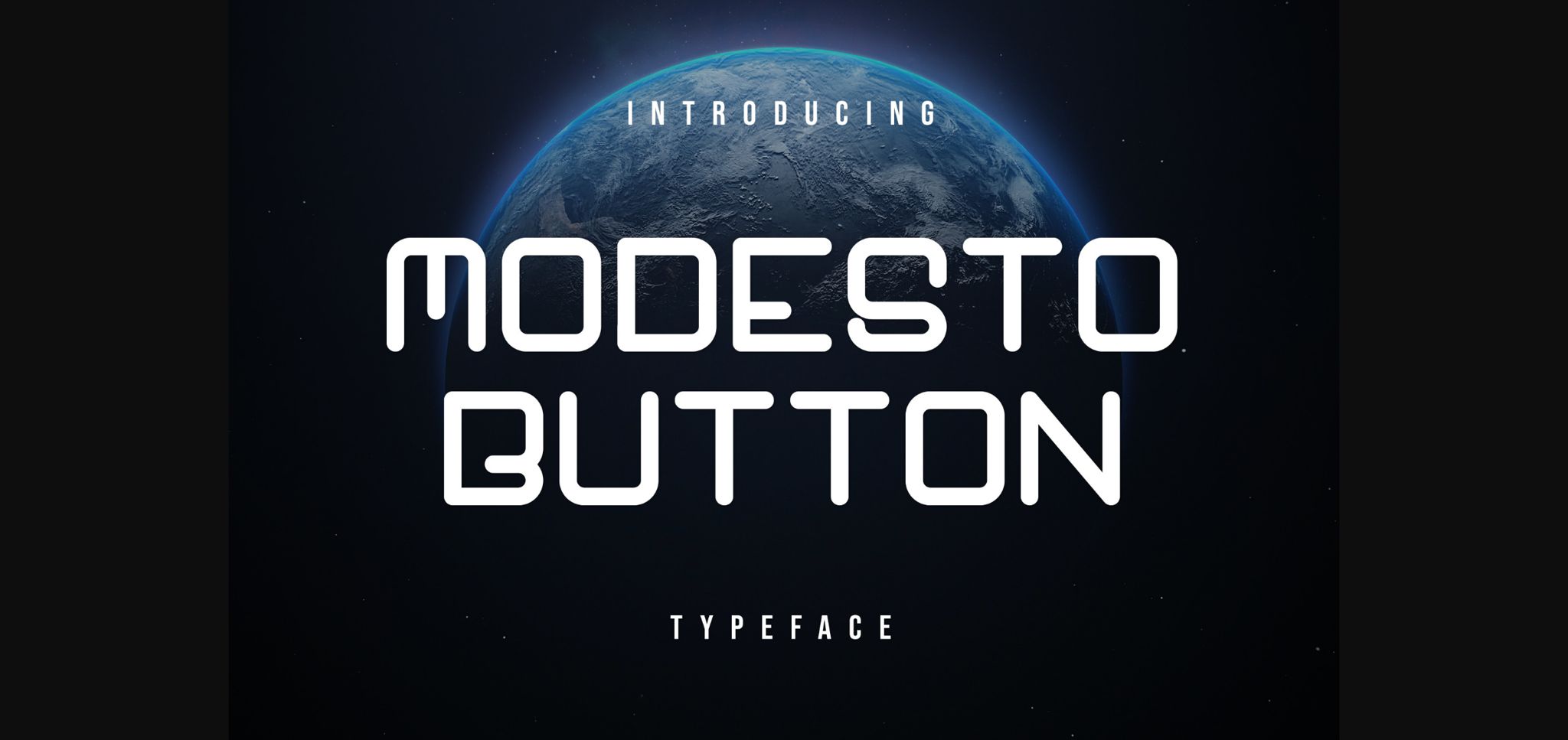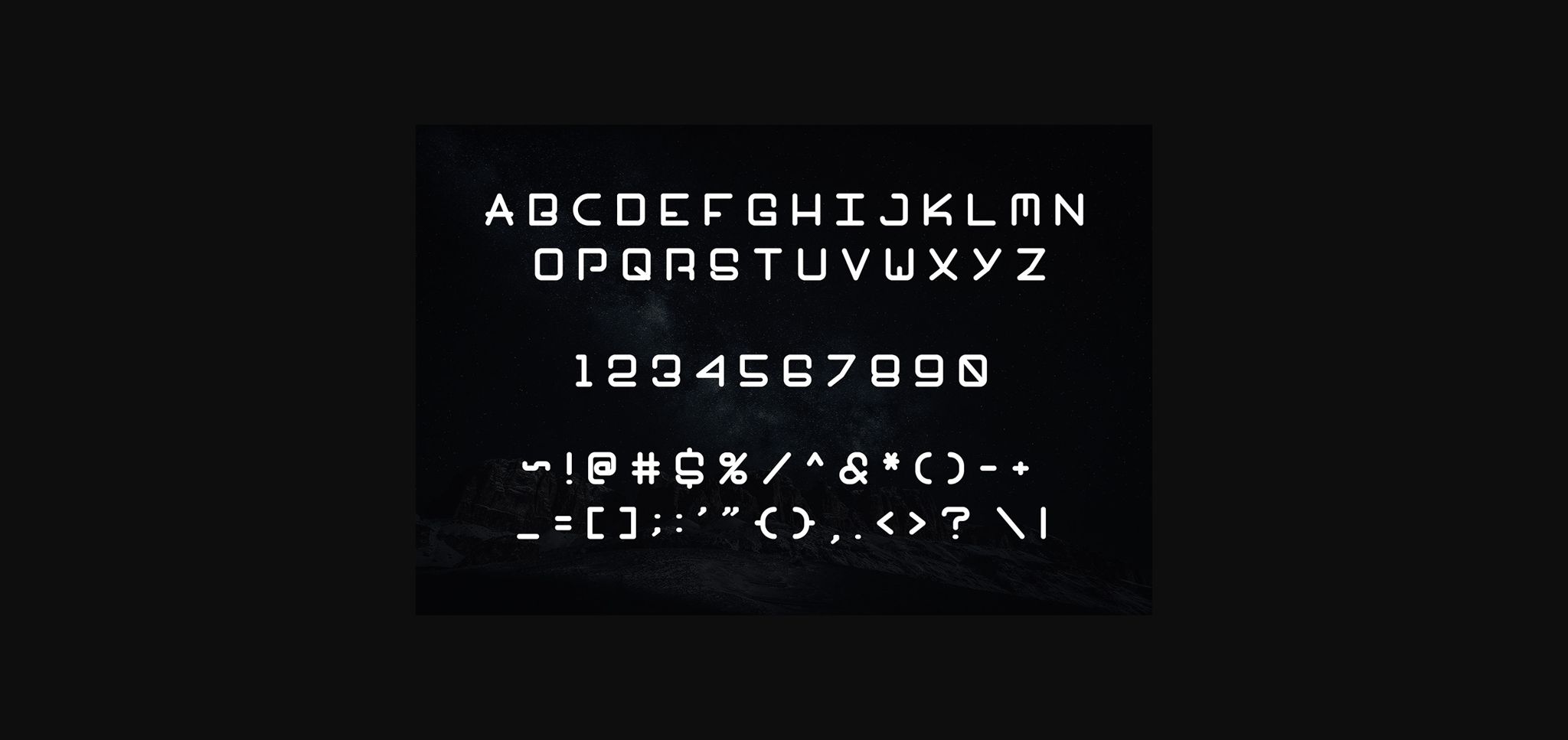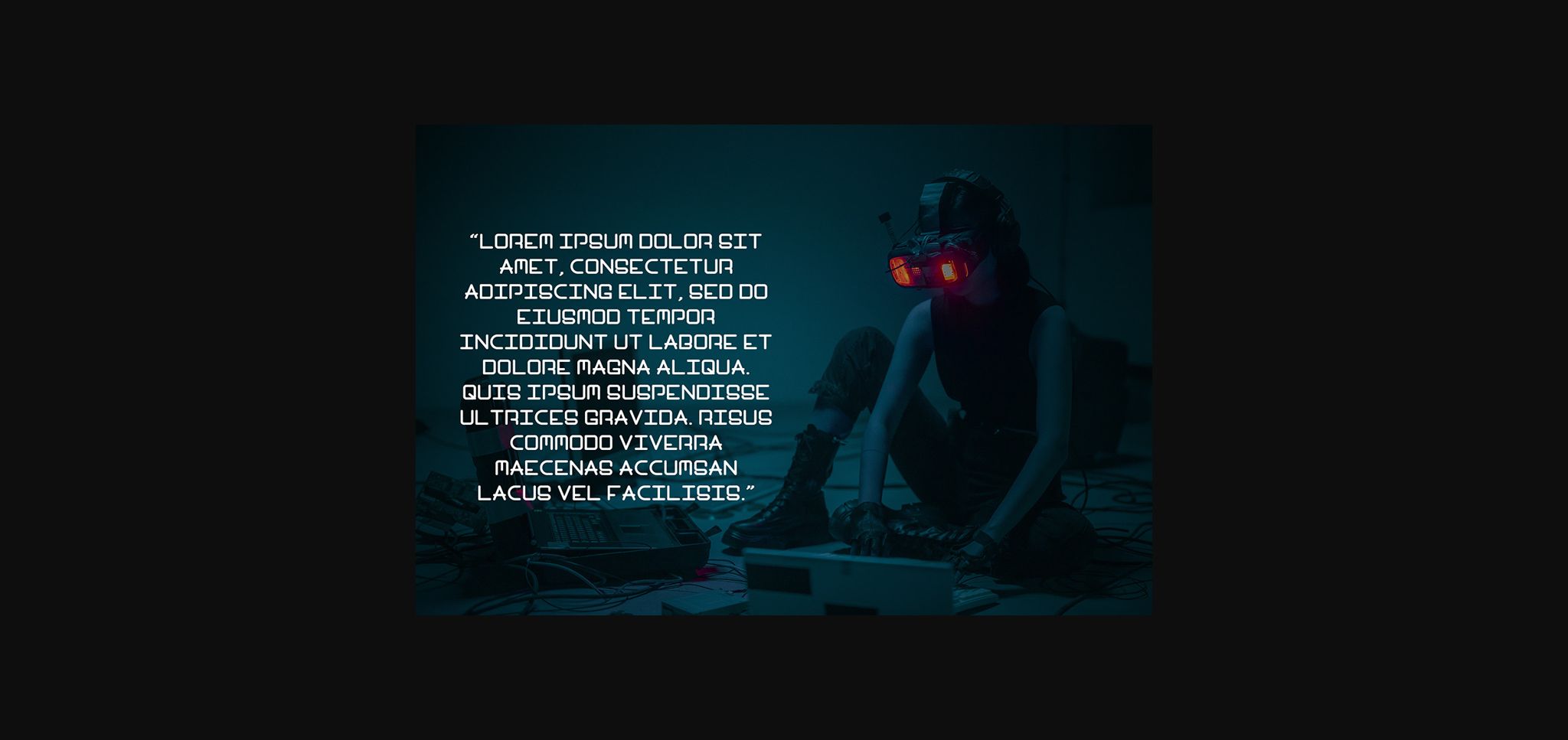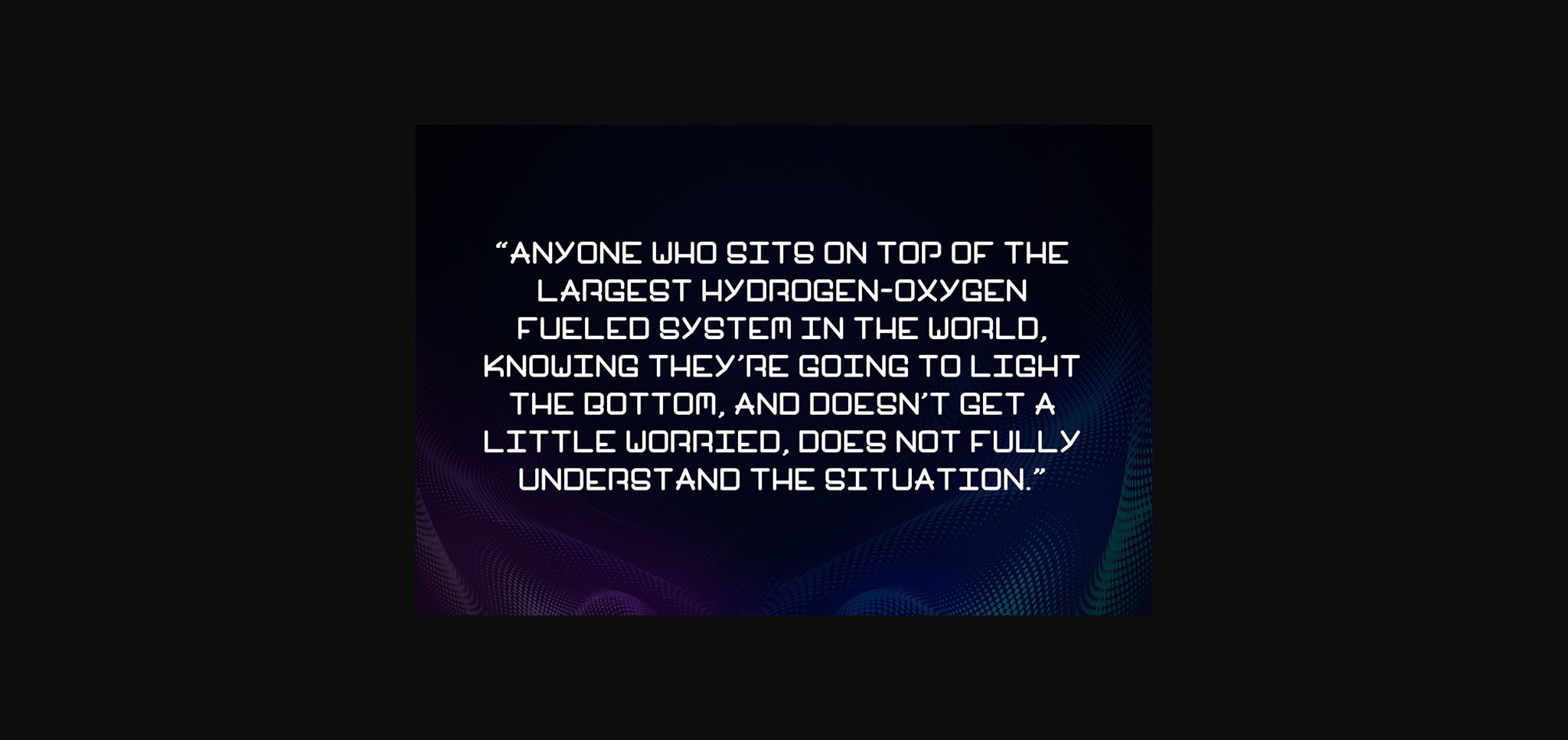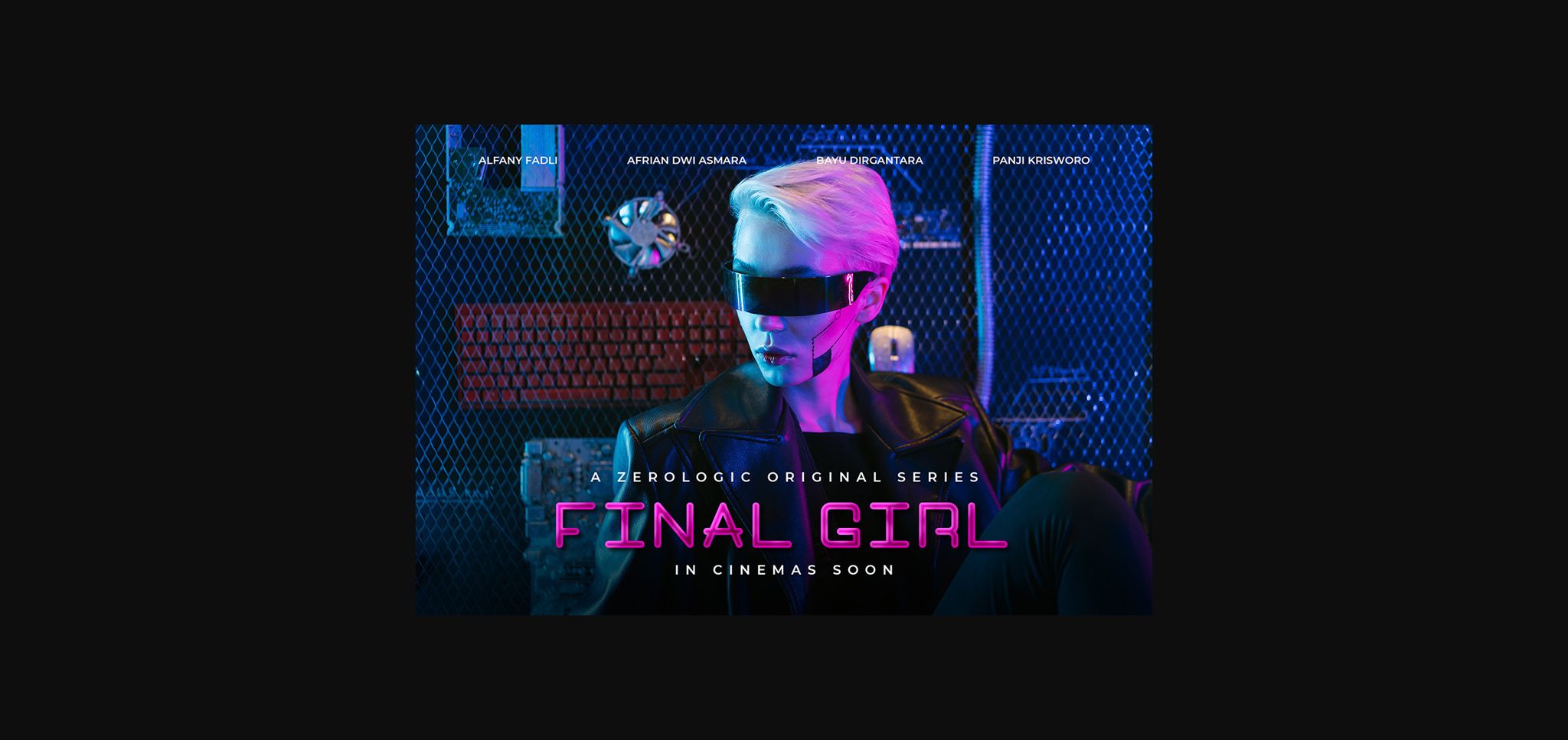
Modesto Button Font
About Modesto Button Font
Modesto Button is a modern font that we designed with original touch for your needs.
This cool font is complete with Uppercase, Lowercase, Numeric & symbols. This very strong and sharp font is perfect
for titles, typography, posters, magazines, brochures, packaging, Websites and much more for your design needs, making your designs more cool.